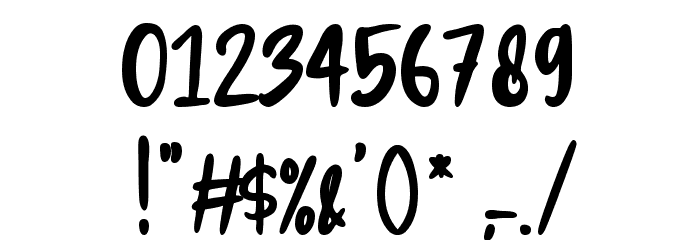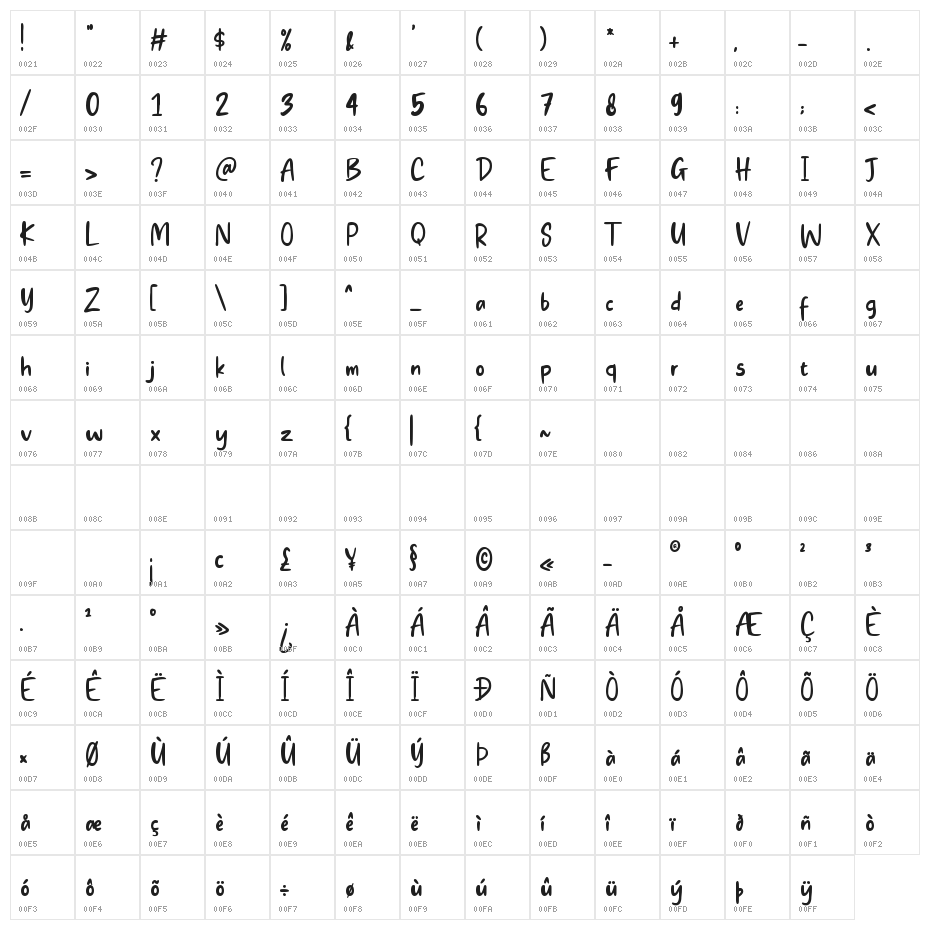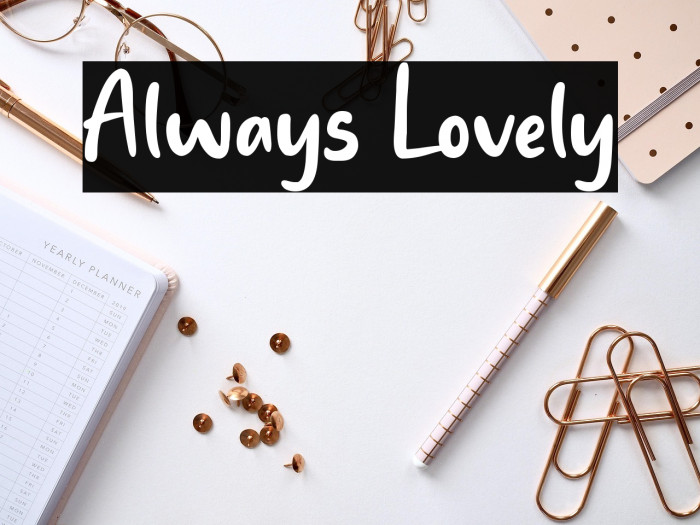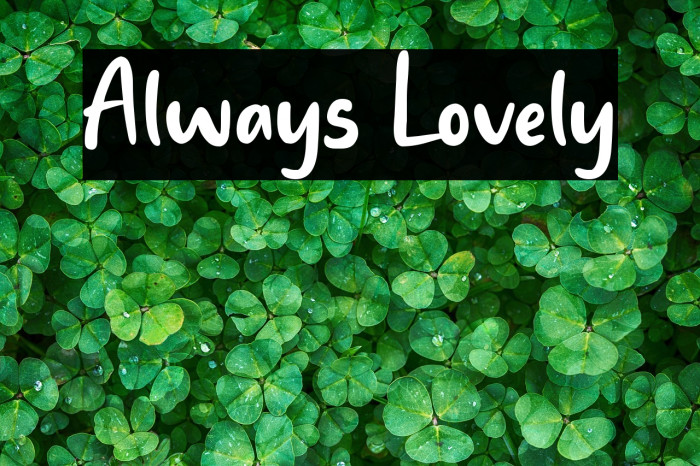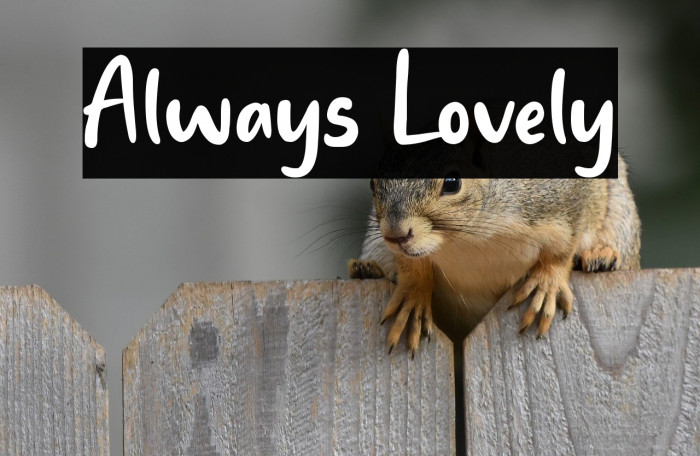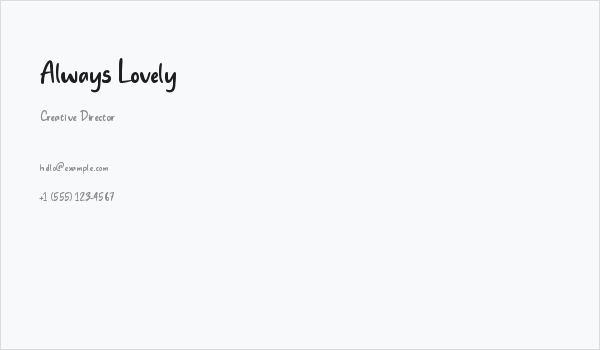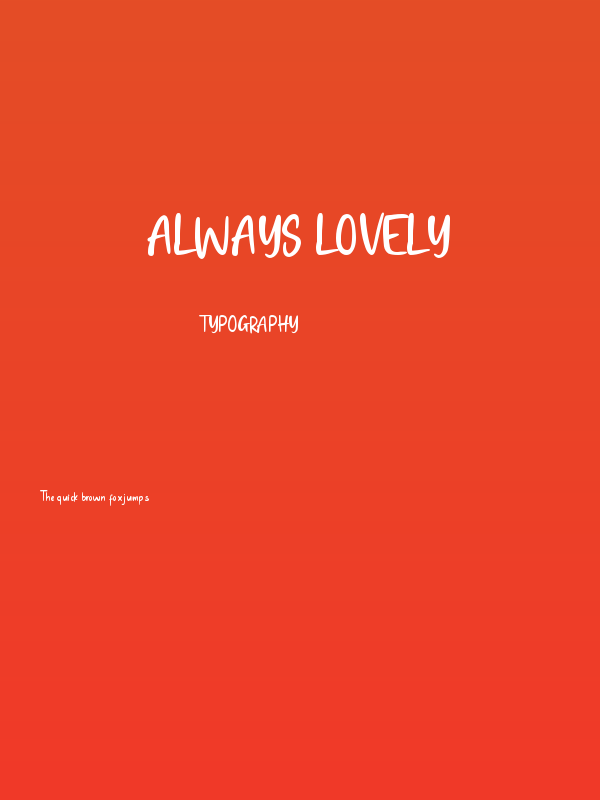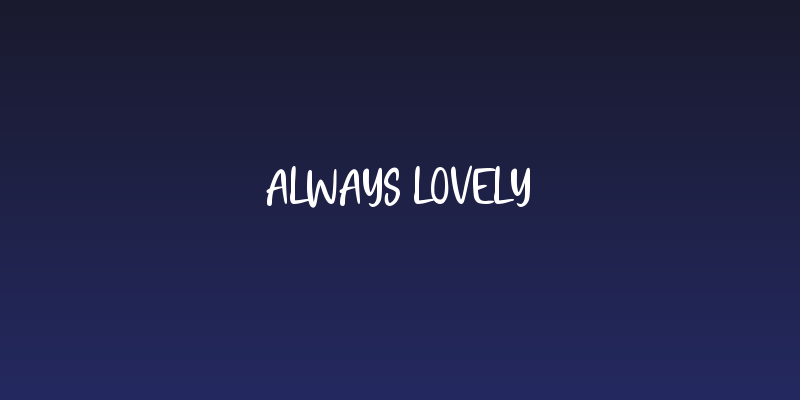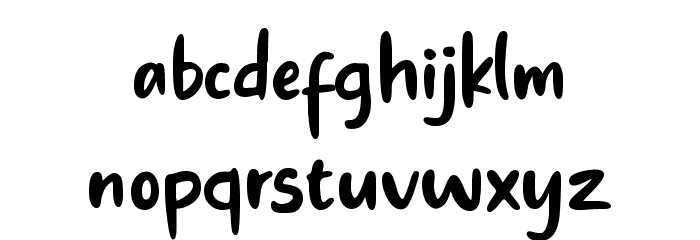
Always Lovely Font
Always Lovely Description
This font exudes a playful and casual handwritten style, characterized by its smooth, flowing curves and slightly irregular letterforms. The strokes are consistent in thickness, giving it a friendly and approachable appearance. The uppercase letters are bold and prominent, while the lowercase letters maintain a cohesive flow, making it ideal for conveying a sense of warmth and informality. The numerals and special characters are crafted with the same playful touch, ensuring uniformity across all characters. This font is perfect for projects that require a personal, human touch, such as greeting cards, invitations, or playful branding.
| Proposed Projects | Greeting cards, invitations, playful branding, children's books, personal blogs. |